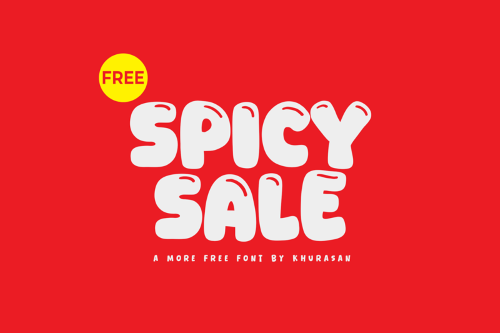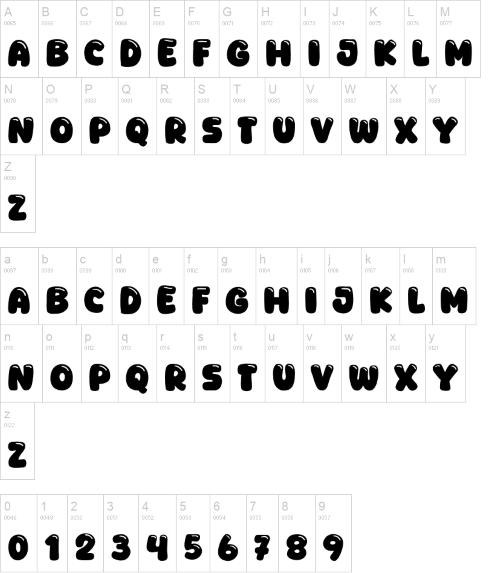
Spicy Sale Font
Spicy Sale Font bursts with bold, high-energy character, perfect for attention-grabbing designs. Its chunky, playful lettering feels loud, promotional, and full of urgency, making it ideal for sales banners, ads, product tags, and seasonal promotions. With a fun commercial flair, Spicy Sale brings excitement, visual punch, and instant retail appeal to any layout.
➤ Font Name:  Spicy Sale
➤ Designer: Khurasan
➤ Style: Cartoon